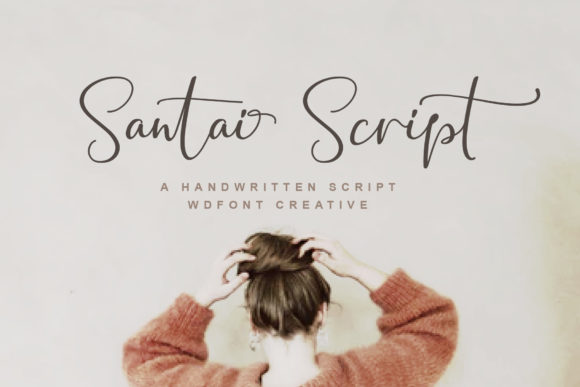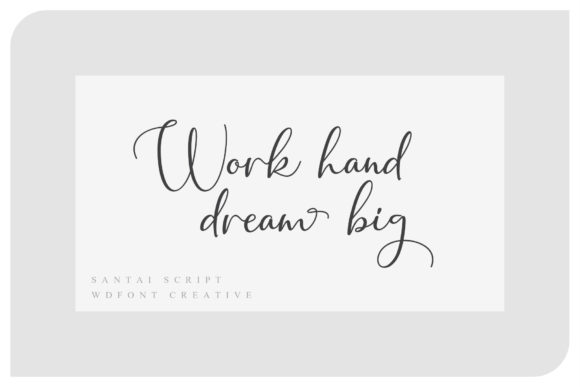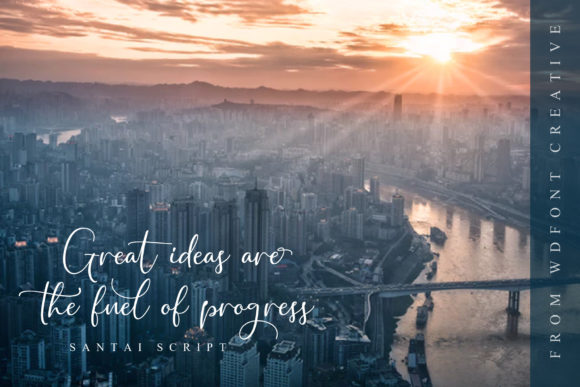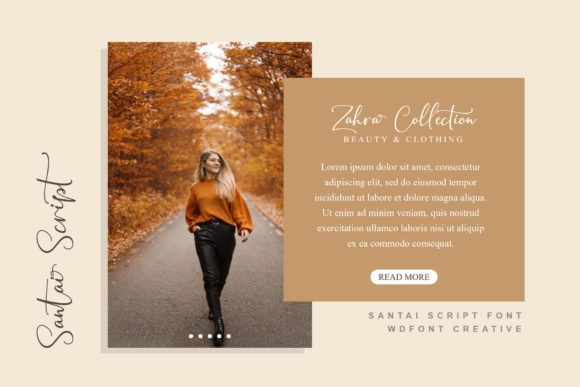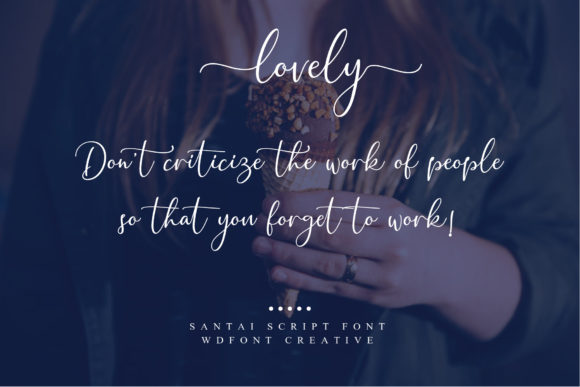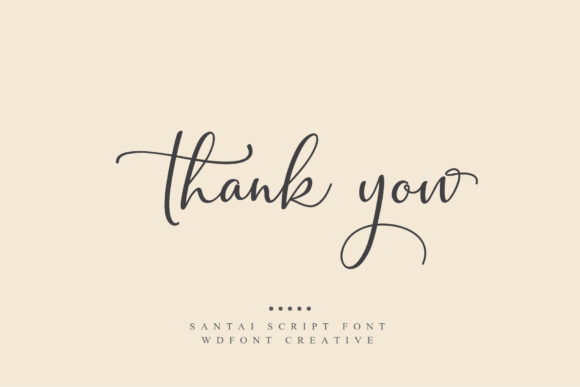
Santai Script Font
About Santai Script Font
Santai is a light and modern handwritten font with an elegant feel. It will add a contemporary touch to any design project!